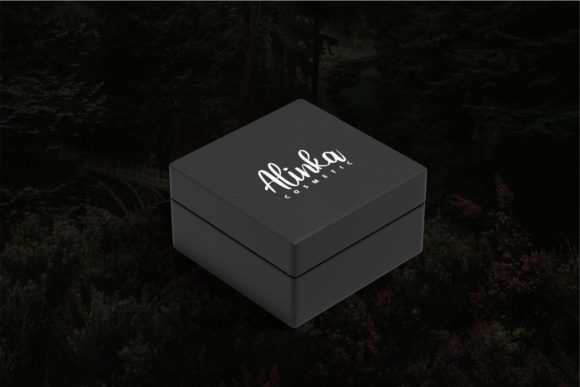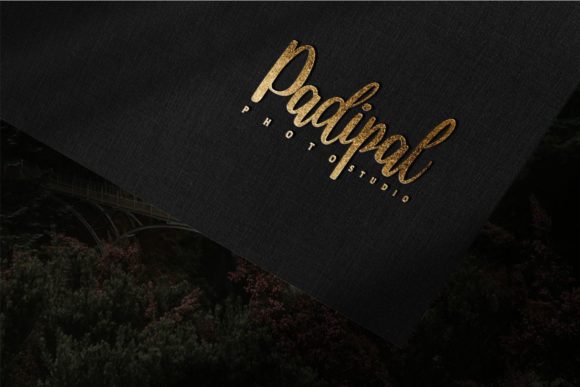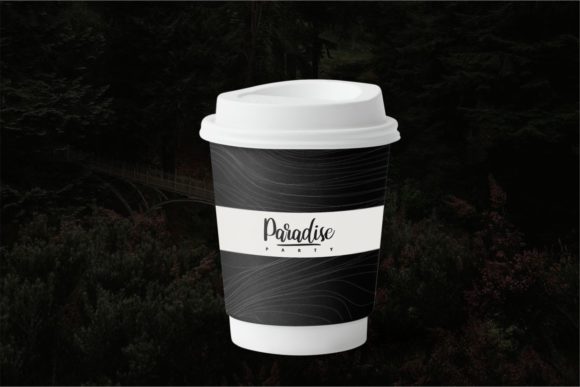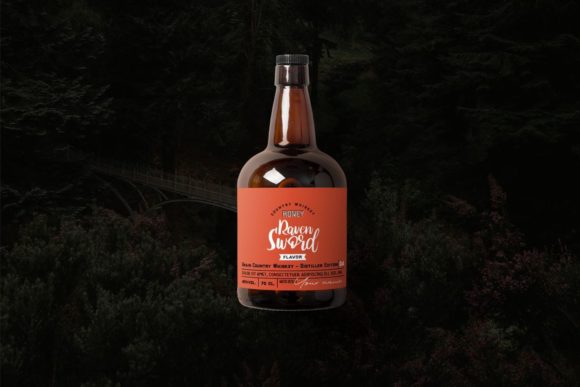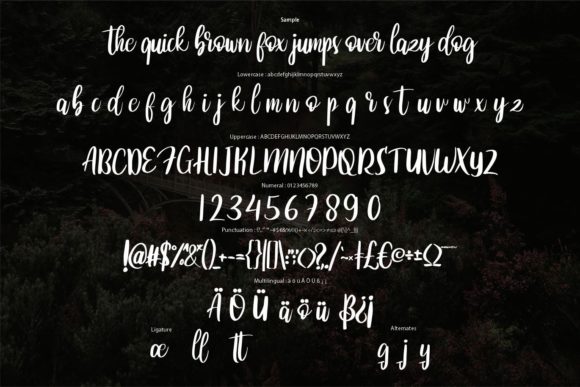
Bettida Font: Elevate Your Designs with a Flowing and Beautiful Handwritten Touch
Are you a designer or crafter looking for a unique and elegant font to add a personalized touch to your creations? Look no further than the stunning Bettida Font. This beautiful handwritten font is perfect for a variety of design projects, including wedding invitations, thank you cards, quotes, greeting cards, logos, business cards, and more.
The Characteristics of Bettida Font
Bettida Font is a flowing and beautiful handwritten font that exudes elegance and sophistication. Its unique characteristics make it an ideal choice for designers and crafters who want to add a touch of personality to their designs. Here are some of the key features of Bettida Font:
- Handwritten style: Bettida Font has a beautiful, handwritten style that gives it a personal and intimate feel.
- Flowing script: The font features a flowing script that is perfect for creating elegant and sophisticated designs.
- Unique letterforms: Each letterform in Bettida Font is unique and carefully crafted to create a beautiful and harmonious alphabet.
- Versatile: Bettida Font is versatile and can be used for a wide range of design projects, from wedding invitations to business cards.
Uses of Bettida Font
Bettida Font is a versatile font that can be used for a variety of design projects. Here are some of the most popular uses of Bettida Font:
- Wedding invitations: Bettida Font is perfect for creating beautiful and elegant wedding invitations that set the tone for a special day.
- Thank you cards: The font is also great for creating personalized thank you cards that show appreciation and gratitude.
- Quotes and posters: Bettida Font can be used to create inspiring quotes and posters that feature beautiful typography.
- Greeting cards: The font is suitable for creating greeting cards for special occasions, such as birthdays, anniversaries, and holidays.
- Logos and branding: Bettida Font can be used to create unique and memorable logos and branding materials that reflect a brand’s personality.
- Business cards: The font is also great for creating professional and elegant business cards that make a lasting impression.
Why Choose Bettida Font?
There are many reasons why designers and crafters choose Bettida Font for their design projects. Here are some of the benefits of using Bettida Font:
- Elegant and sophisticated: Bettida Font adds an elegant and sophisticated touch to any design project.
- Unique and personalized: The font’s unique letterforms and handwritten style make it perfect for creating personalized designs.
- Versatile: Bettida Font can be used for a wide range of design projects, making it a great addition to any designer’s toolkit.
Tips for Using Bettida Font
Here are some tips for using Bettida Font in your design projects:
- Use it sparingly: Bettida Font is a beautiful font, but it can be overwhelming if used too much. Use it sparingly to create a sense of elegance and sophistication.
- Pair it with other fonts: Bettida Font can be paired with other fonts to create a unique and interesting design.
- Experiment with colors: The font looks great in a variety of colors, so experiment with different colors to find the one that works best for your design.
- Pay attention to spacing: Make sure to pay attention to spacing when using Bettida Font, as it can affect the overall look and feel of your design.
In conclusion, Bettida Font is a beautiful and elegant handwritten font that is perfect for designers and crafters who want to add a personalized touch to their designs. Its unique characteristics, versatility, and ease of use make it a great addition to any designer’s toolkit. Whether you’re creating wedding invitations, thank you cards, quotes, greeting cards, logos, business cards, or any other design project, Bettida Font is sure to elevate your designs and make them stand out.